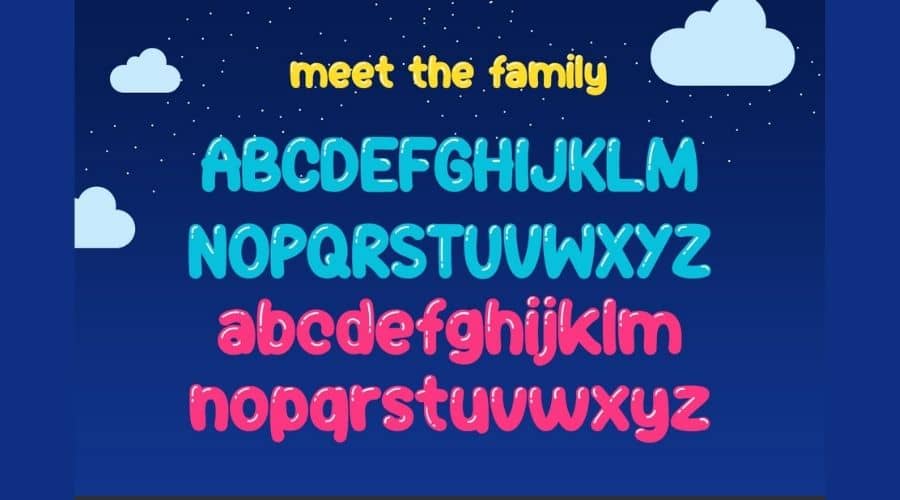
Jelly Belly Font
Today I’m going to show you a great Display font named Jelly Belly Font, which was last updated on June 11, 2019. It is completely free to download and install on your computer for your own use only! The JellyBelly Font is just for personal use! Starting with uppercase, lowercase, Numeric, and certain Special character and alternatives, fonts are available. Jelly Belly Font Regular is the ideal font for all of your whimsical projects. Jelly Belly Font is a font family. Regular is the subfamily. Jelly Belly is a free to download rounded blubbly typeface. Each letter has a gleaming highlight, which reminds me of long balloons that can be folded into various shapes, including letters. The gleaming effect can be left empty or filled with a variety of colors. Jelly Belly is a free app that includes basic Latin characters. Special thanks to the folks at Salt & Pepper Designs for making this typeface available for free.
Jelly Belly Font is also ideal for branding projects, homeware designs, product packaging, or just as a trendy text overlay on any backdrop image. JellyBelly Font is great for logos, branding, invites, stationery, wedding designs, logos, business cards, covers, t-shirts, social media posts, and more. It will also be utilized to generate stunning images and text in a variety of colors and styles.